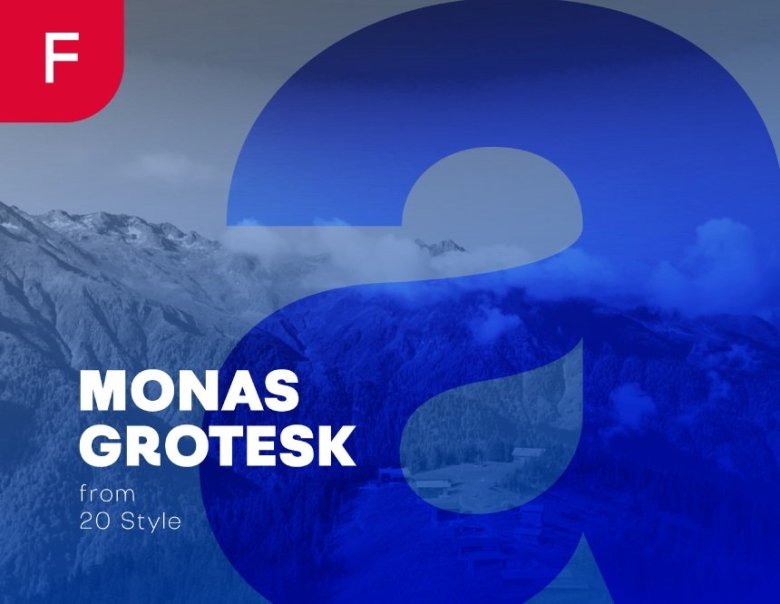
Monas Grotesk Font
Monas Grotesk Sans Serif Font is a stunning upper and lowercase text serif that works beautifully for branding projects and especially body text.
Designed to be easily read at small scale, Monas Grotesk is a beautiful choice for text in both digital and print formats. With Monas Grotesk, you can write bold banner writings and bring your slogans to life. Monas supports many language options and will not let you down.
Monas Grotesk Sans Serif Font